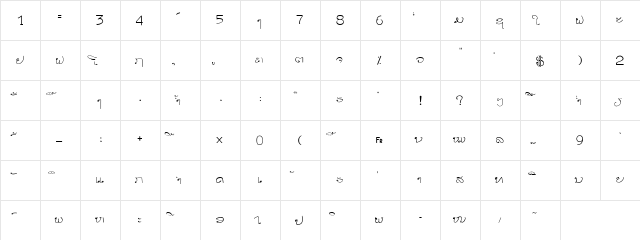
alice_2 Medium
alice_2 takes a measured approach to typography — its balanced proportions and neutral character make it a reliable workhorse for both digital and print work.